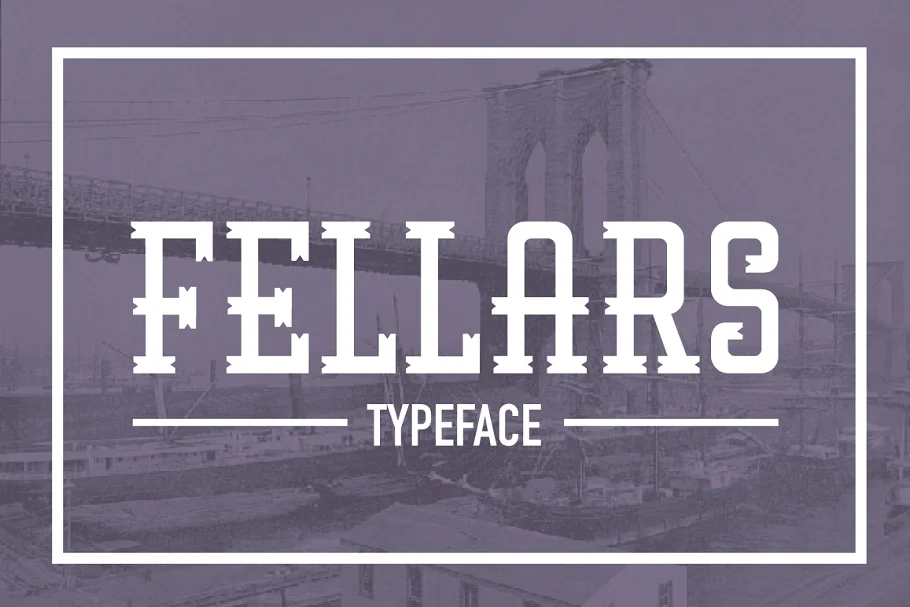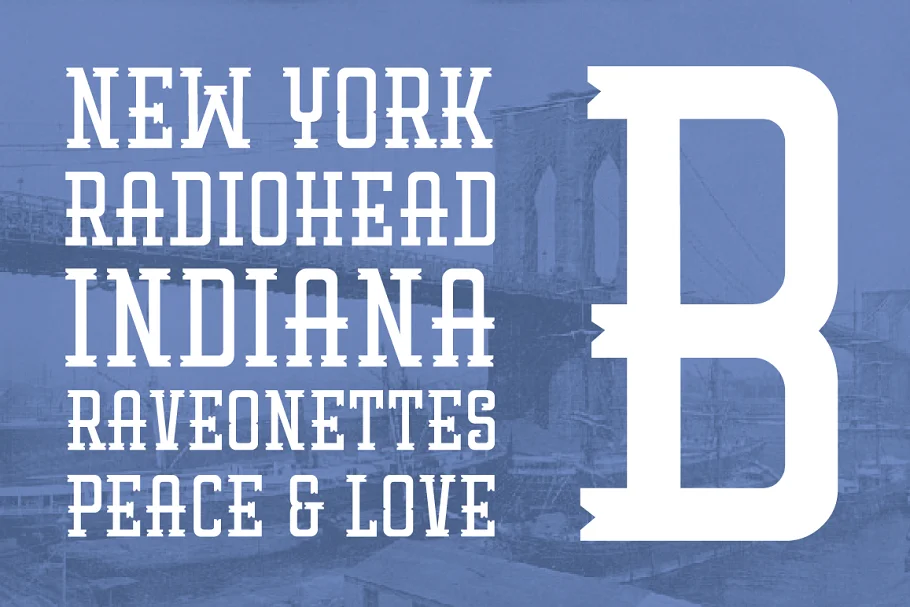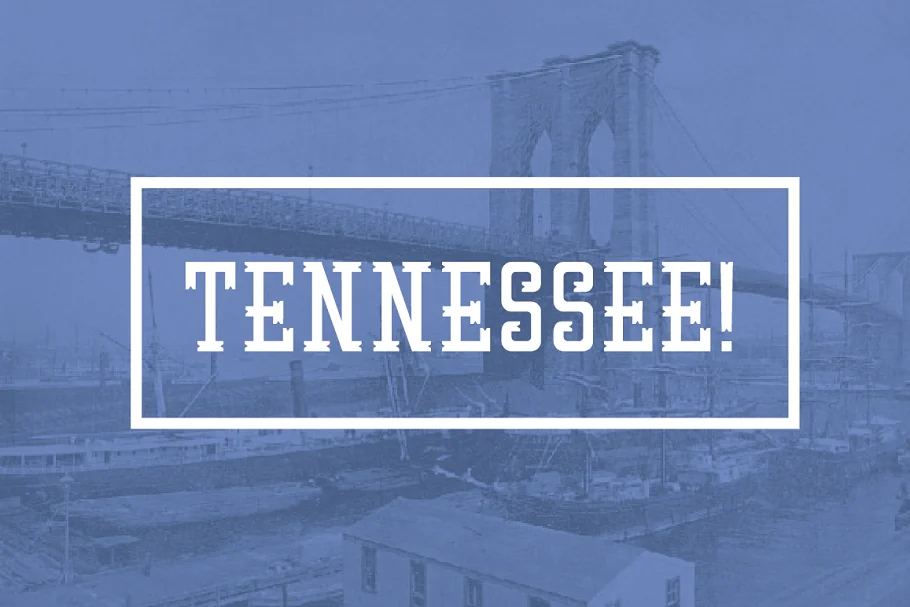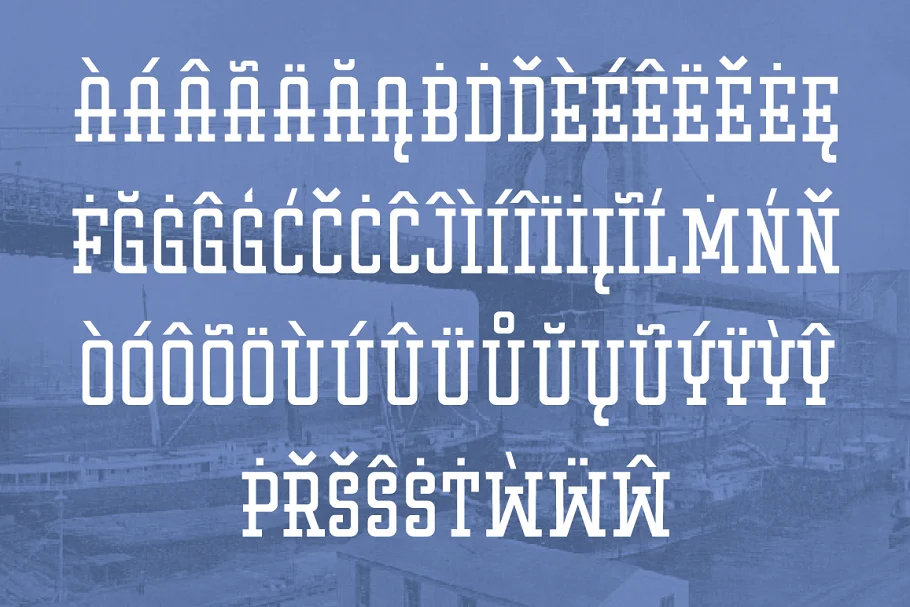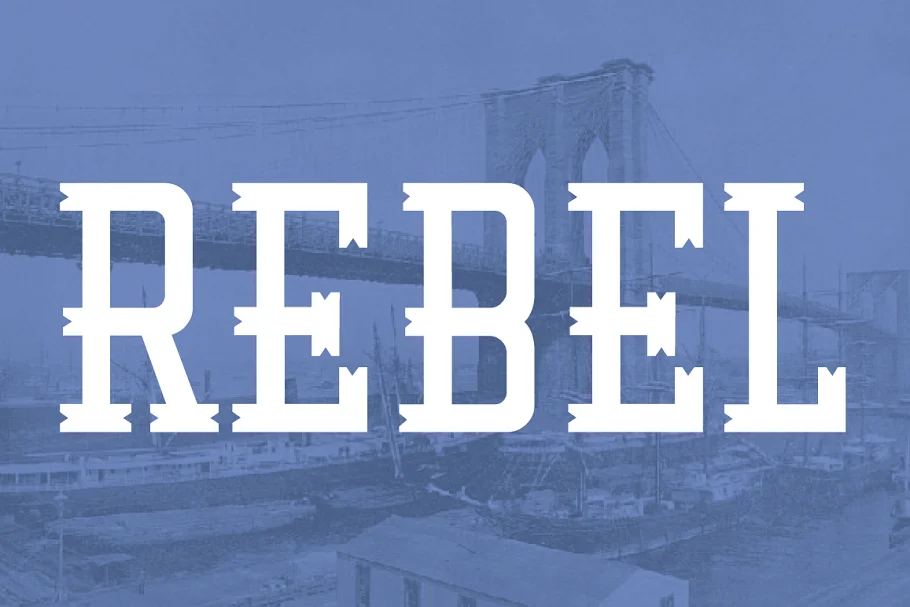
About the Fellars Typeface Font
Fellars is a retro typeface inspired by the old times in Brooklyn. inspiration comes from old signs from shops, barbershops, and the old tobacco companies, and is mixed with avant-garde style.
The font also takes focuses on the logotype for clothing brands.